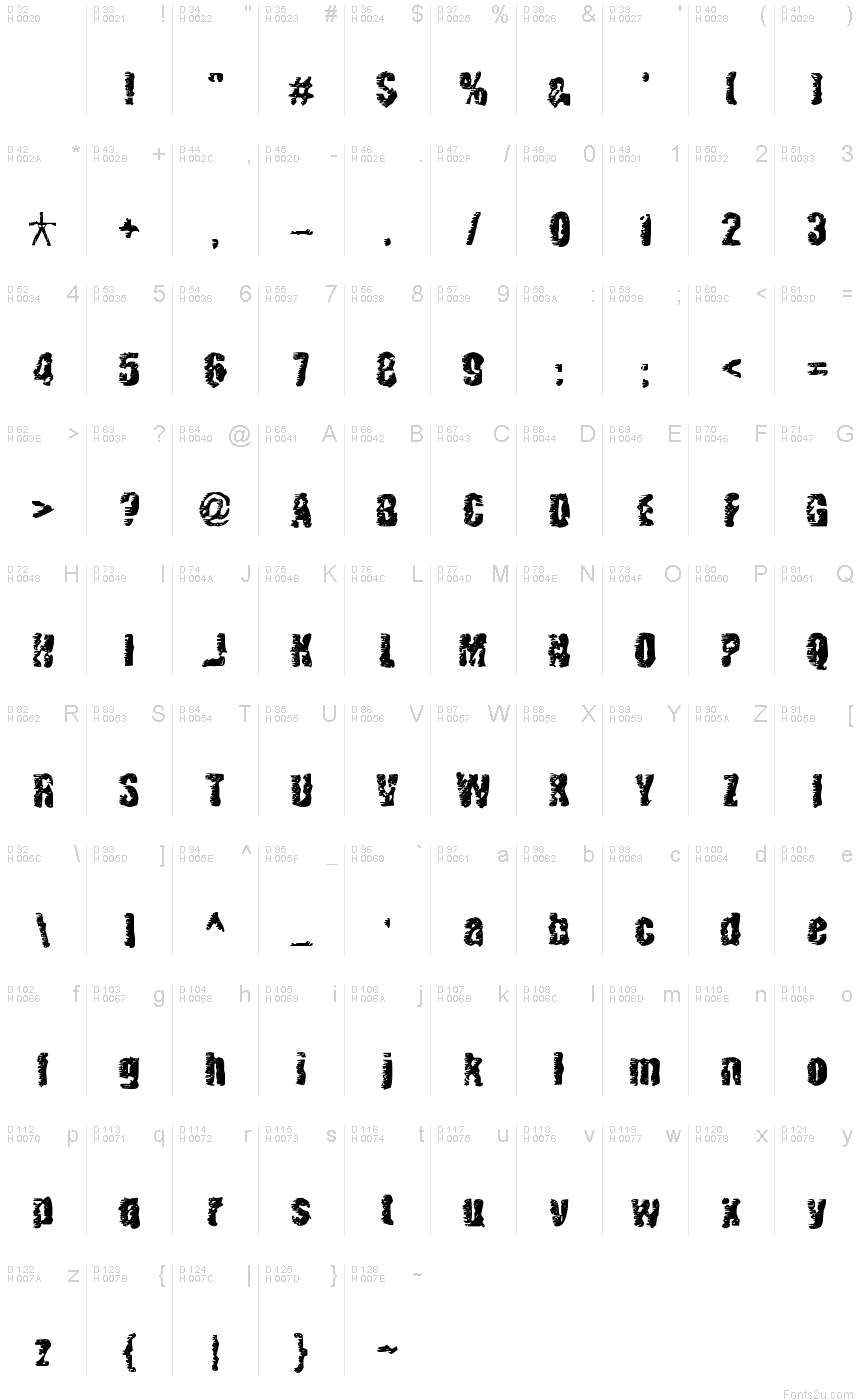
BN BenWitch Project
BN BenWitch Project font by Ben Nathan is a free eroded horror typeface that looks like it’s been clawed out of the dark. Thick, inky shapes are shredded with scratchy white cuts, giving every word a restless, flickering texture. The rhythm stays surprisingly readable, so you get full-on chaos at a glance, without losing the message underneath.
Using BN BenWitch Project, you can push haunted house posters, Halloween party flyers, escape-room branding, horror book covers, spooky merch, and themed social graphics into full-on nightmare mode. This free font thrives at large sizes where its ragged edges and dense forms can really breathe. Pair it with a plain, narrow sans serif for body text to keep the overall layout sharp and legible.